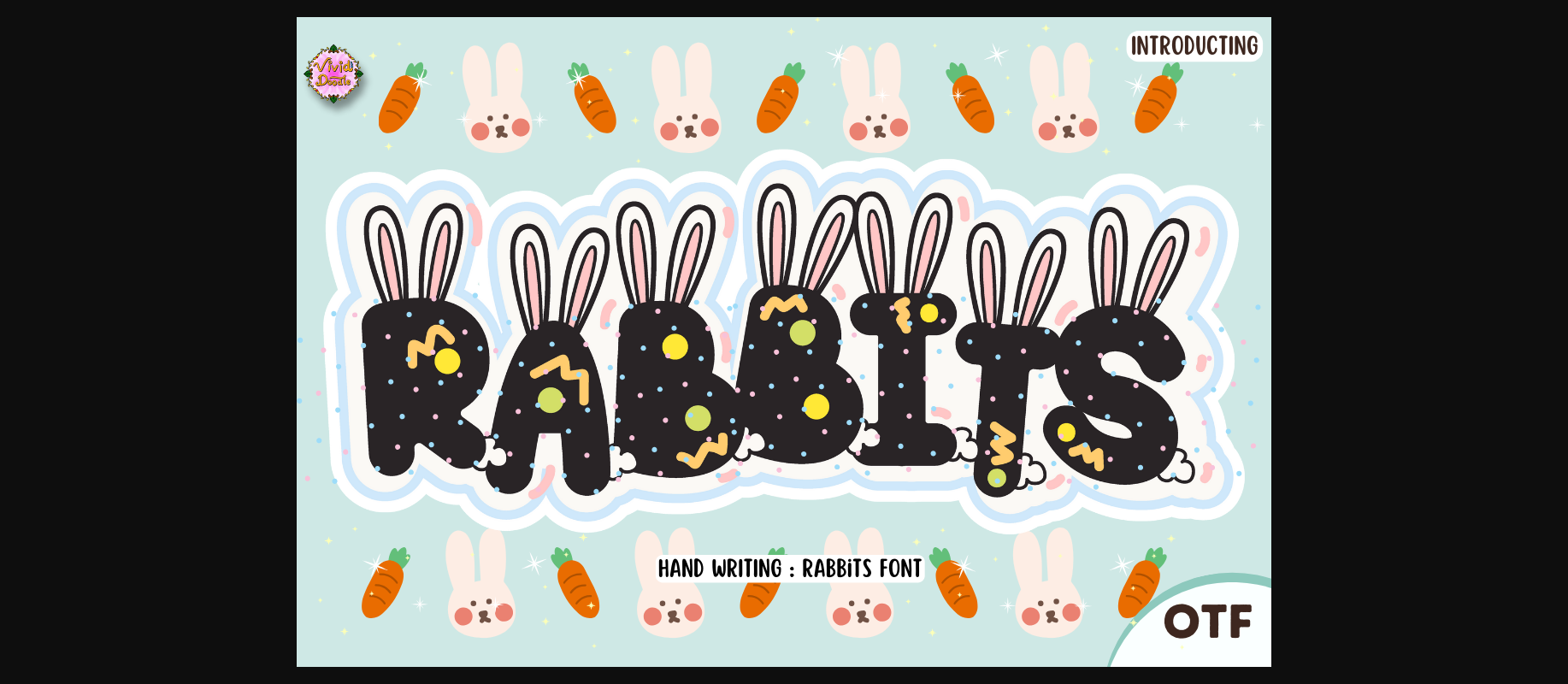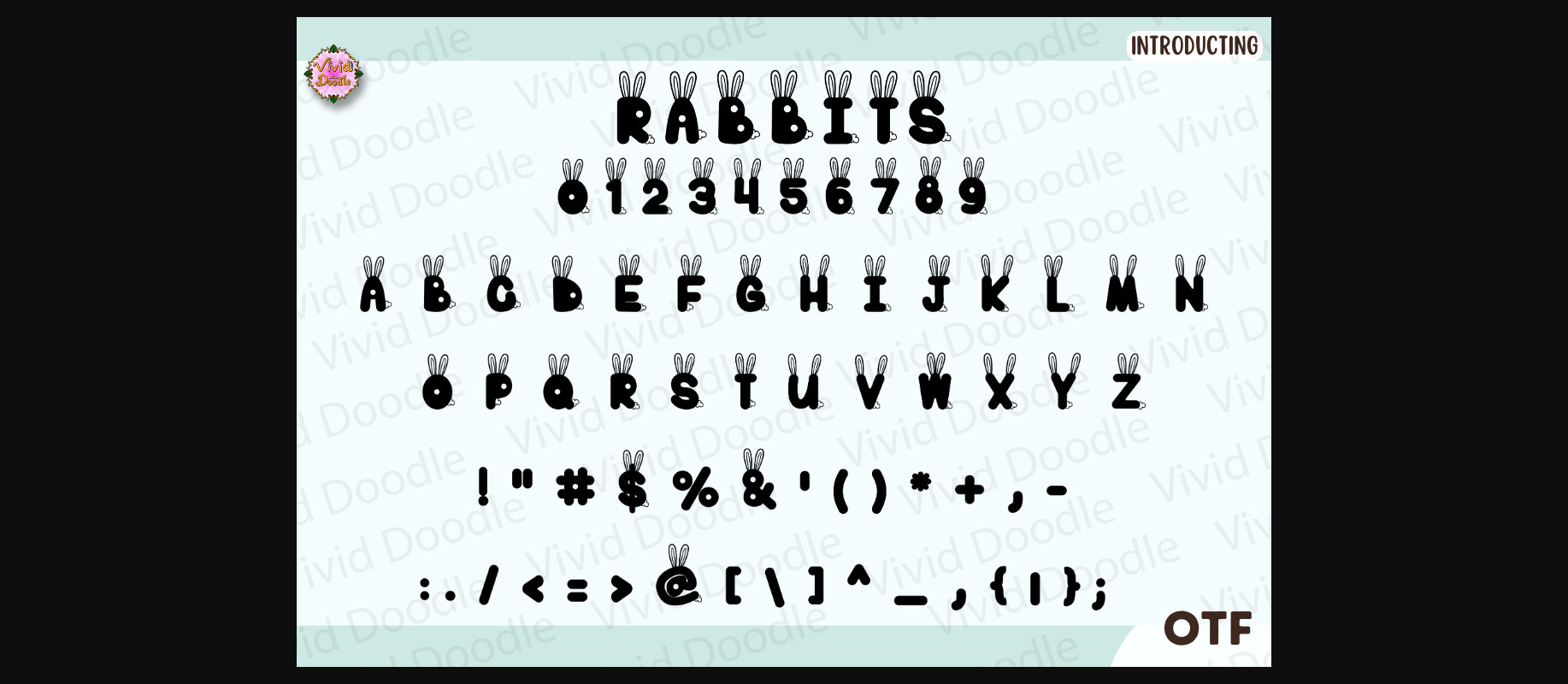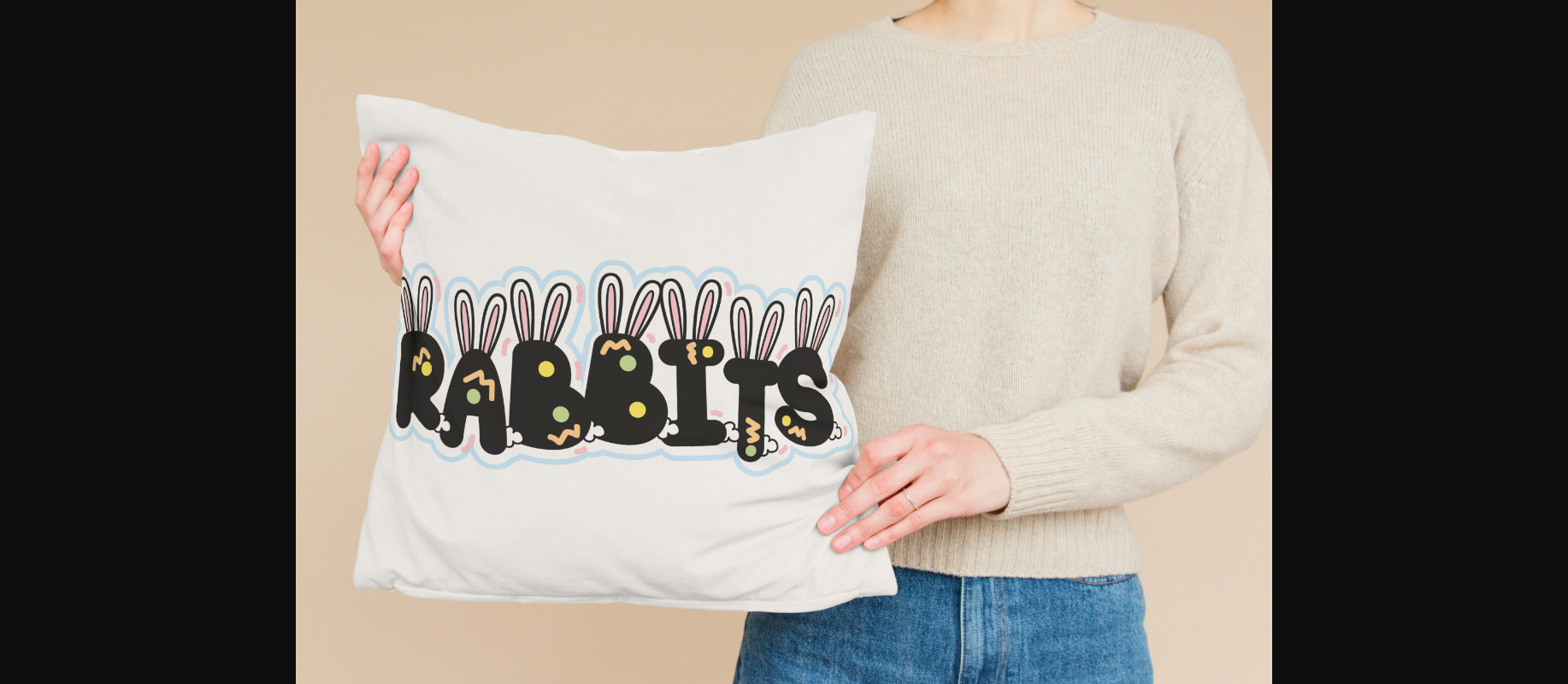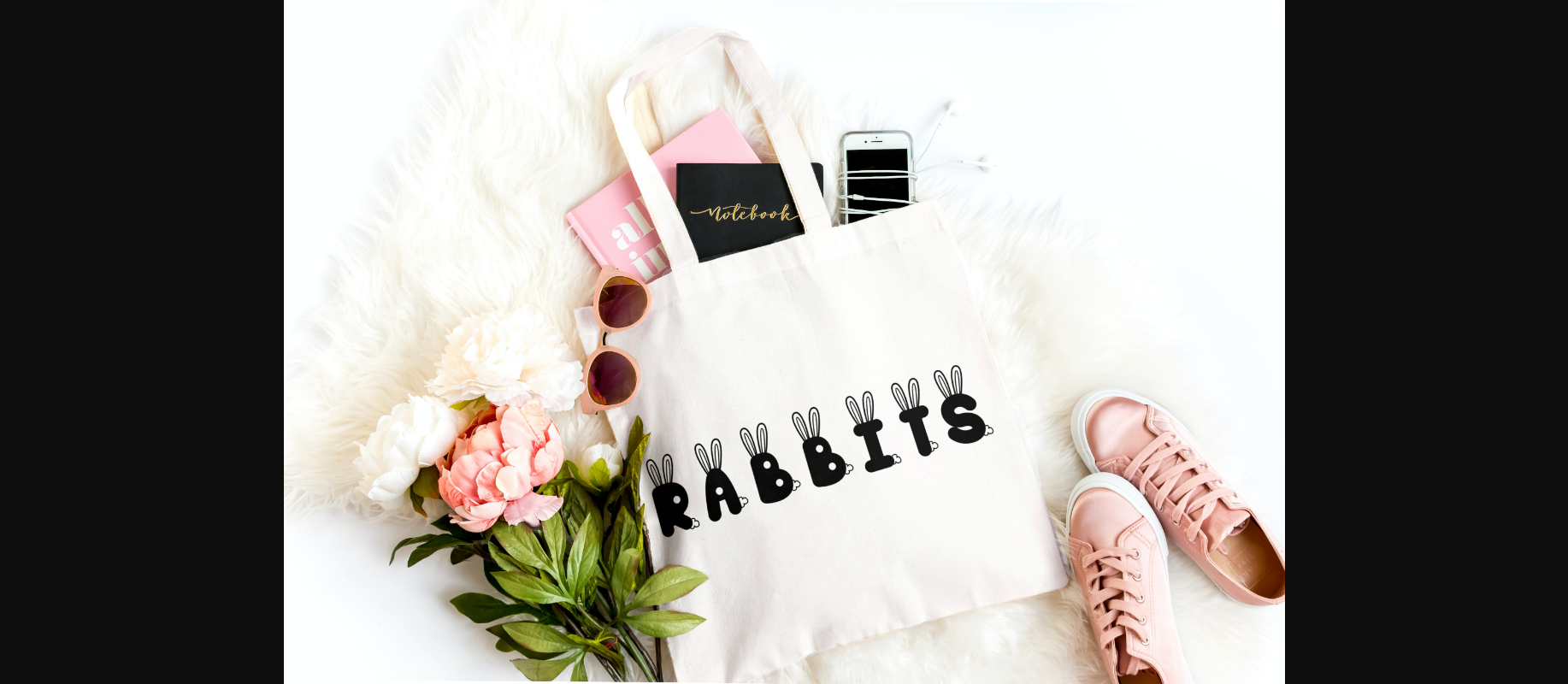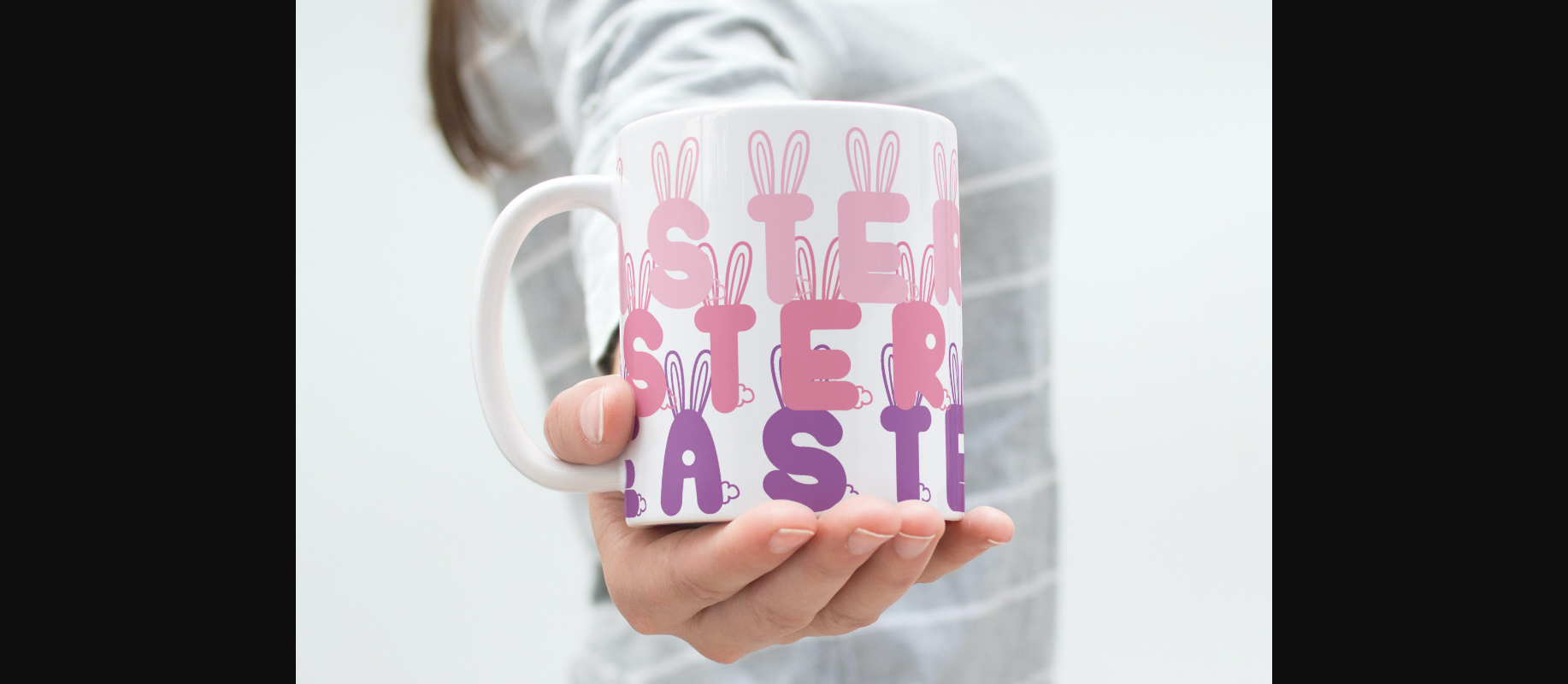
Rabbits Font
About Rabbits Font
Hop into creativity with Rabbits font—a charming typeface that transforms every letter and character into adorable bunnies. Perfect for all your Easter projects. Each character is playfully designed with bunny ears and whimsical details, adding a delightful touch to your designs. Whether Easter cards, holiday decorations, or any creative endeavor, this font blends cuteness with artistic flair. Elevate your artwork with the heartwarming charm of the Rabbits font, inviting your audience to experience the joy of bunnies in every letter and character. Transform your designs into a cute, festive celebration with this enchanting, rabbit-inspired typeface!